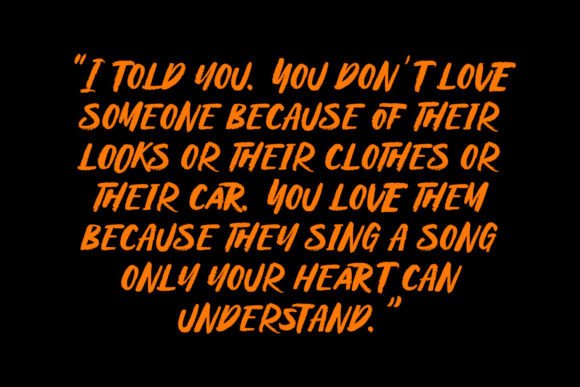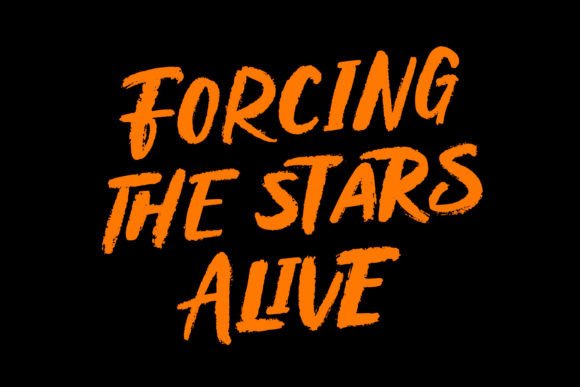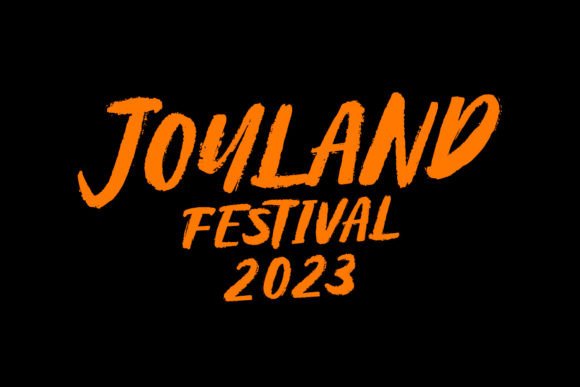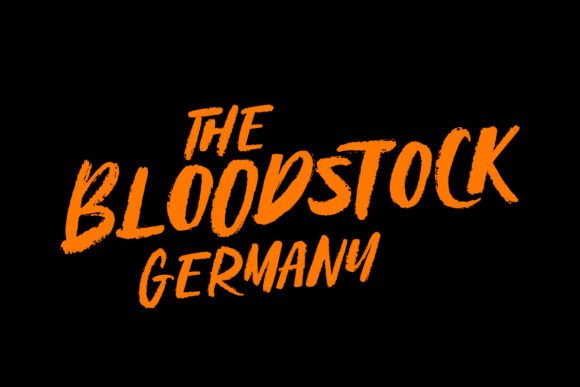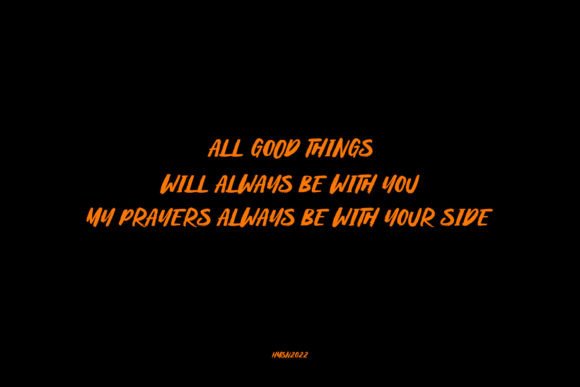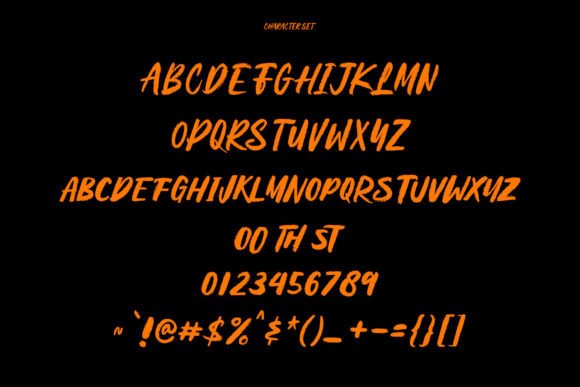
Introduction to Karma Koma Font
Karma Koma is a casual brush display font.
Bold and assertive, this font will be perfect for any project that requires strong and daring typography .